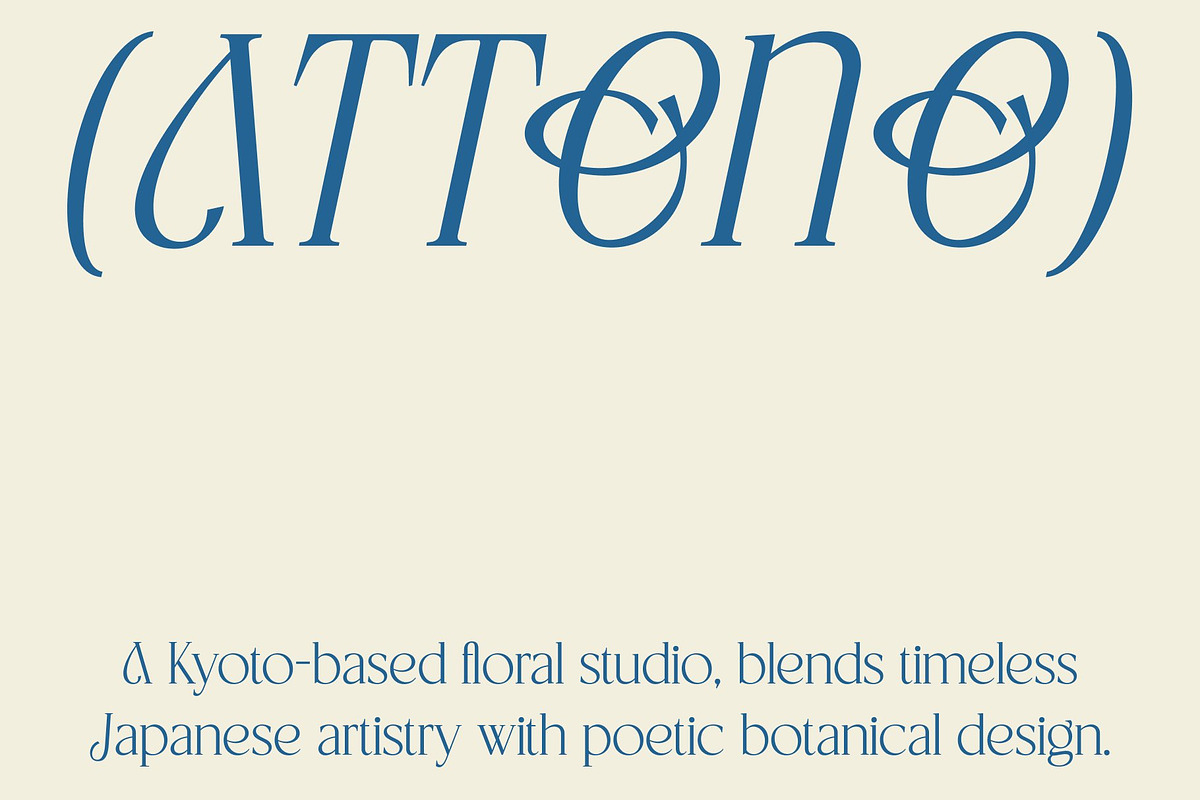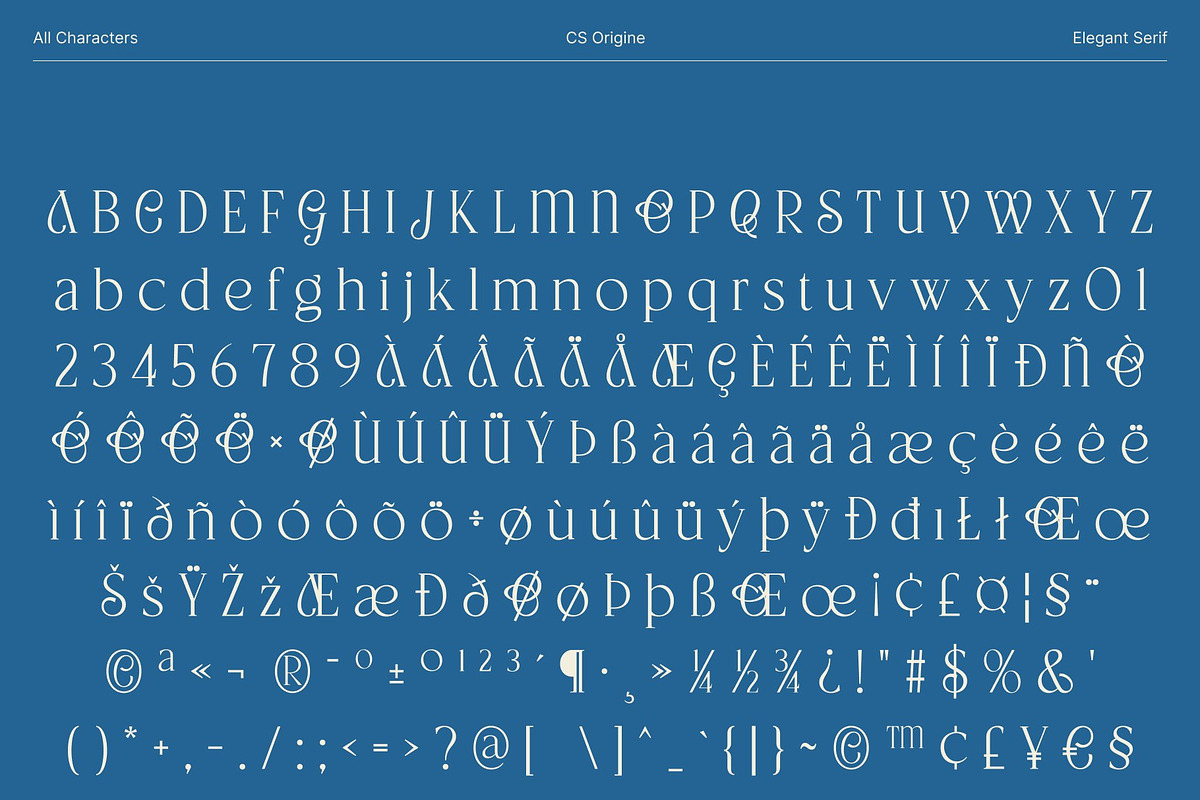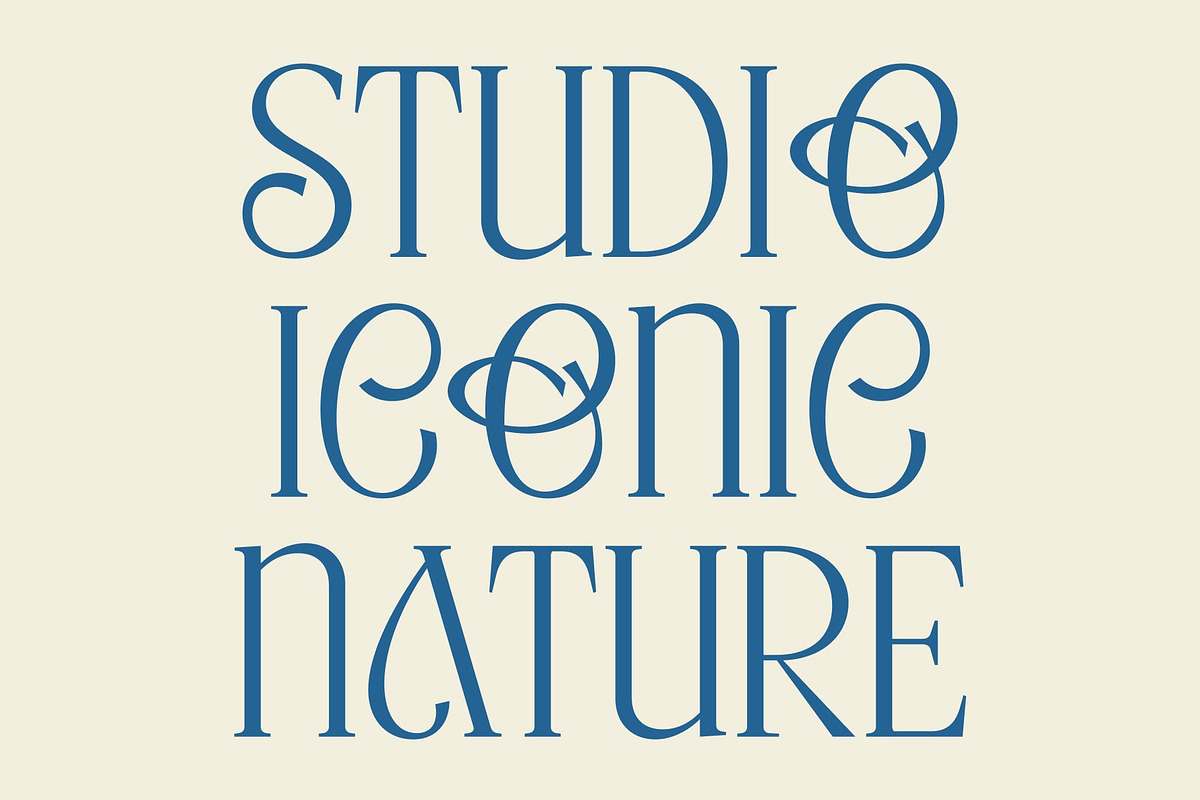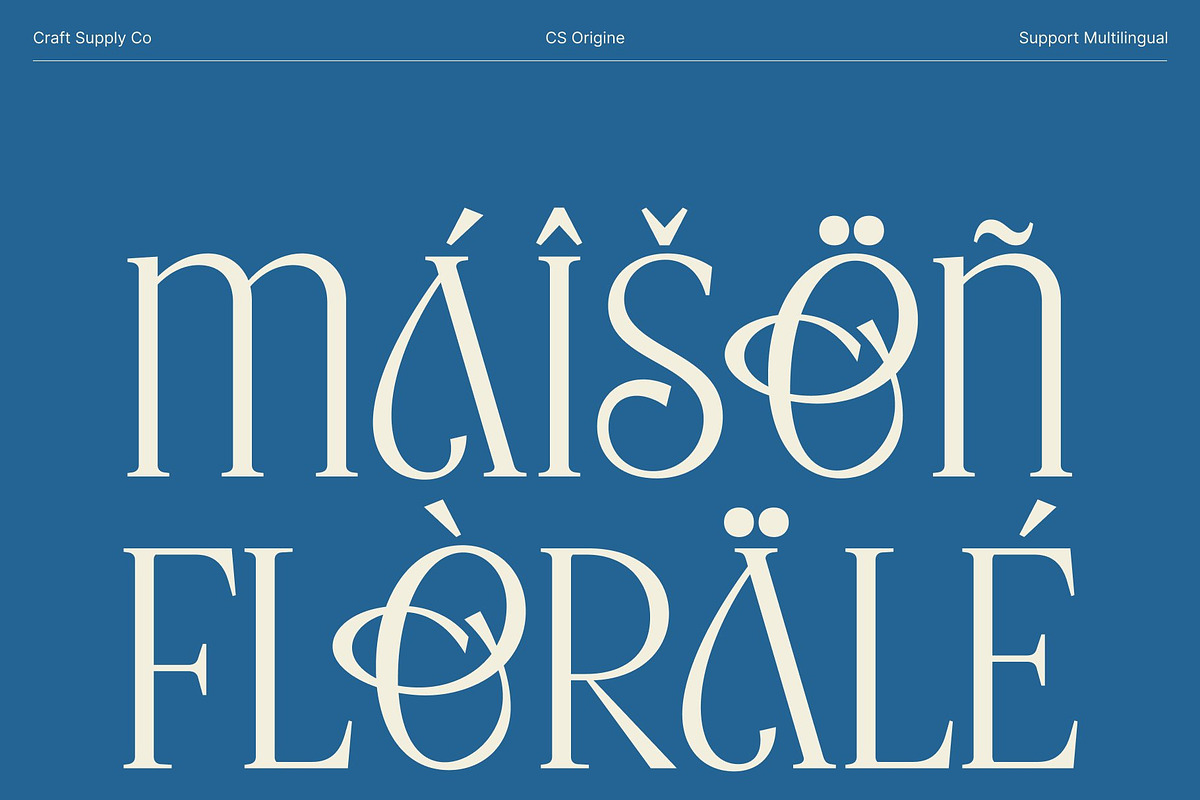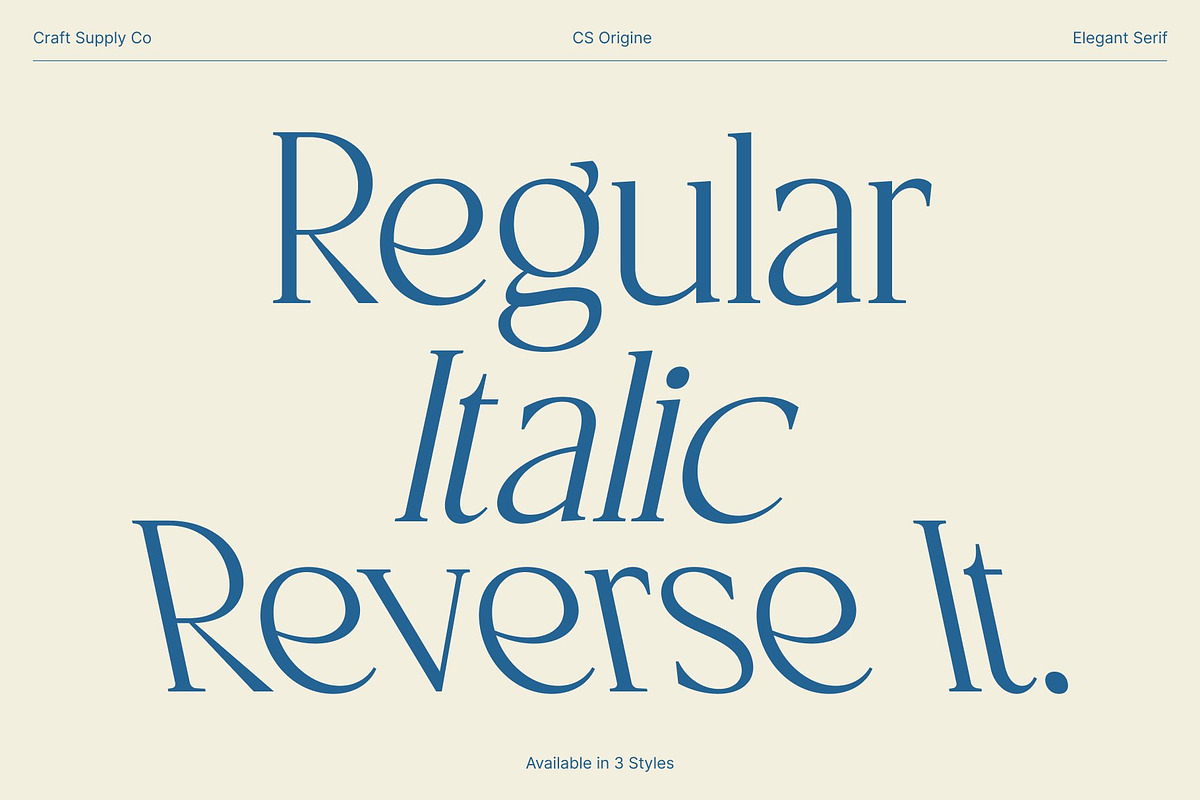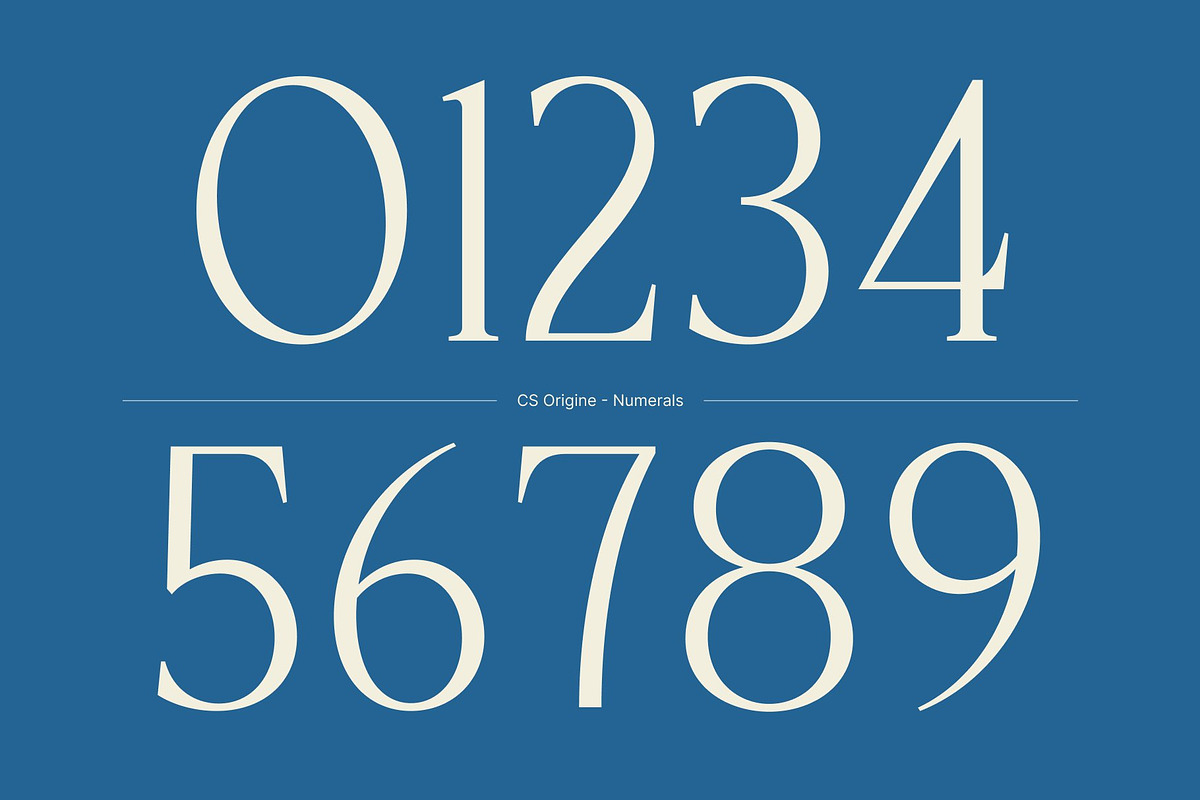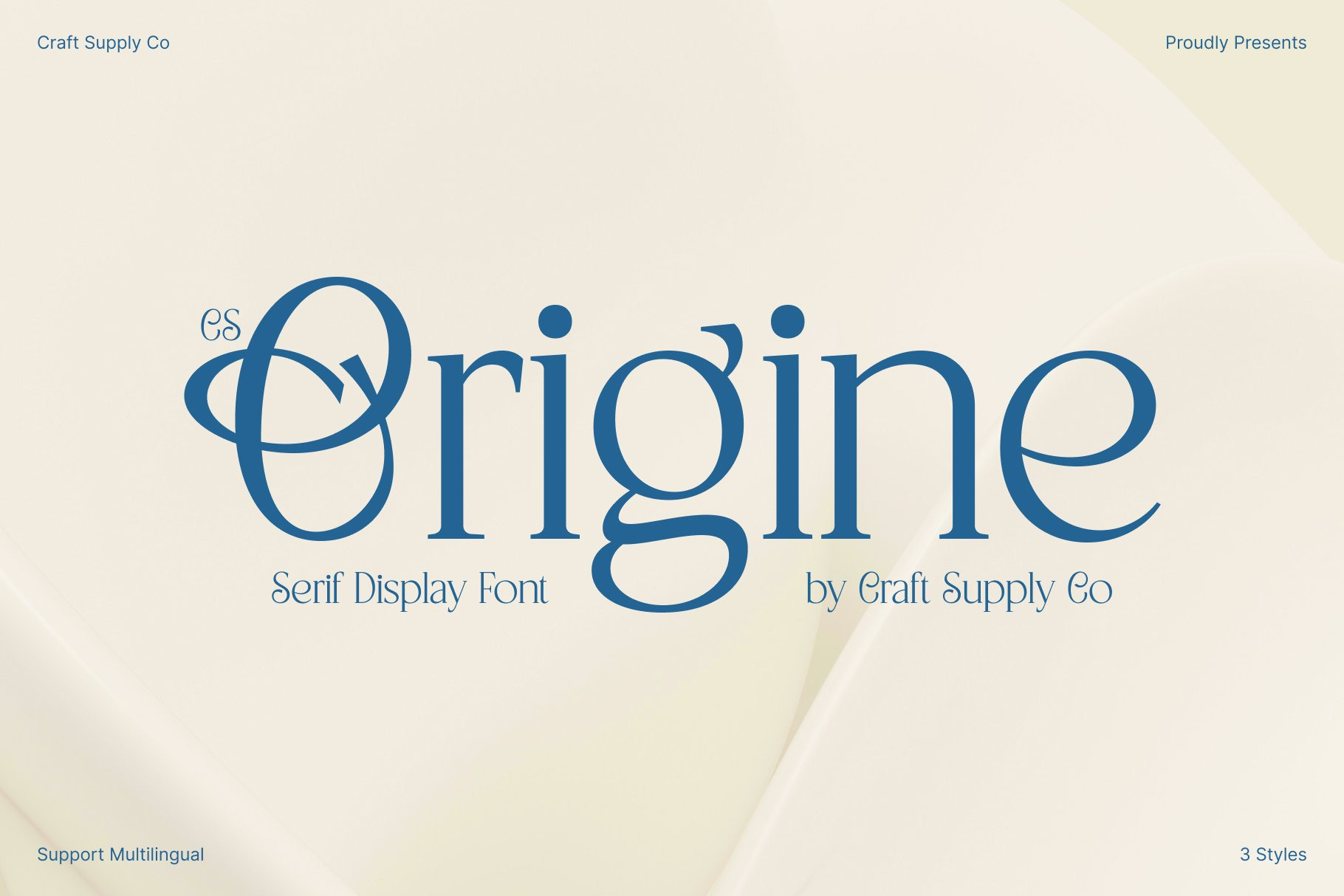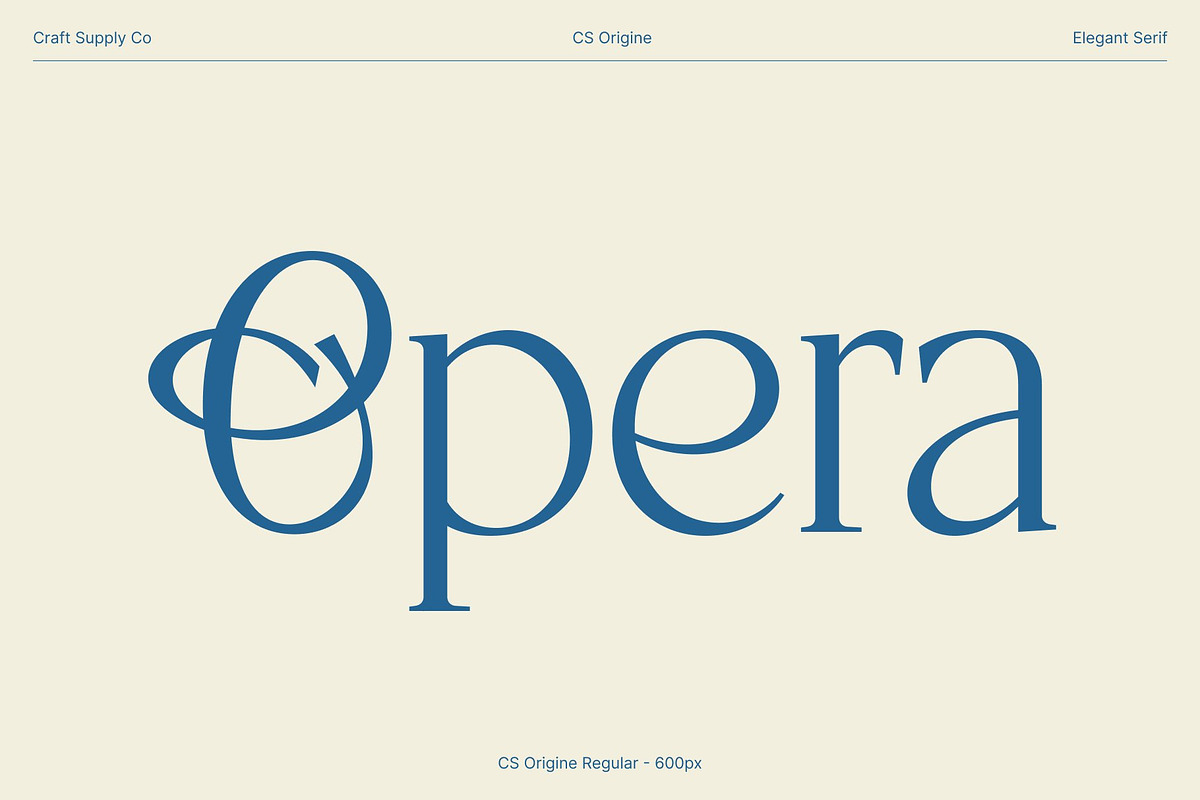
CS Origine – Elegant Serif Font
CS Origine – Elegant Serif with Exotic, Sleek Sophistication
Exotic Serif Shapes with Refined Modern Elegance This is an elegantly crafted serif font that blends exotic curves with sleek, modern structure. Its distinctive letterforms feature graceful transitions, refined serifs, and subtle sculpted details that create a polished and beautiful impression. Designed with a sense of sophistication, this font elevates any visual composition with its clean yet expressive style.
Clean, Stylish, and Perfectly Balanced Design Every character in this font is shaped with care, resulting in a harmonious balance between decorative elegance and contemporary clarity. The smooth strokes and slender shapes contribute to a clean, airy feel that enhances readability while maintaining artistic charm. This makes the font visually appealing both in large, expressive titles and refined text layouts.
Ideal for Premium Branding and Elegant Visual Identities This font thrives in design projects that demand luxury, beauty, and a sense of refinement. From branding and editorial layouts to packaging and invitations, the font communicates professionalism with a creative twist. Its exotic yet minimalist character gives brands a unique personality while preserving an upscale, trustworthy impression.
Perfect for Elegant Posters, Editorials, and High-End Creative Work Whether you’re designing elegant posters, stylish social media content, magazine layouts, or high-end promotional materials, brings sophistication to every detail. Its combination of sleek curves and classic serif influence makes it versatile and timeless.
- CS Origine Regular
- CS Origine Italic
- CS Origine Reverse Italic